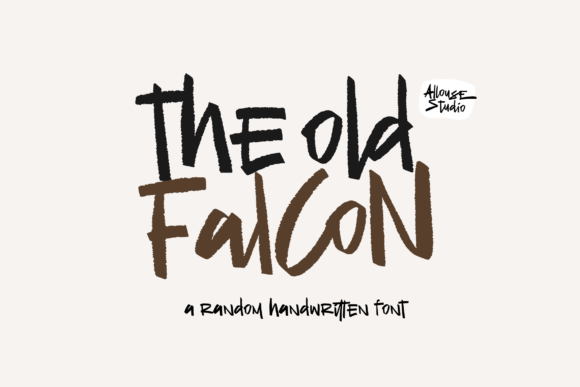
Step into the world of urban flair with The Old Falcons Font, a captivating display font that exudes street art aesthetics. Inspired by the bold and expressive spirit of graffiti, this font ignites a sense of rebellion and authenticity. Its energetic strokes and edgy character bring a touch of rebellion to your designs, making it the perfect choice for those seeking to make a statement.
Unleash your creativity with The Old Falcons Font, a font oozing with individuality and style. Whether you're designing t-shirts, sportswear, logos, advertisements, or clothing, this font adds an instant dose of urban cool. Its PUA encoding ensures effortless access to all glyphs and swashes, empowering you to explore endless creative possibilities.
If you're seeking a font that speaks to your rebellious side and embodies the essence of street art, look no further than The Old Falcons Font. Its bold personality and unique charm will transform your designs into captivating works of art, leaving a lasting impression on your audience. Don't settle for ordinary - embrace the extraordinary with The Old Falcons Font today.